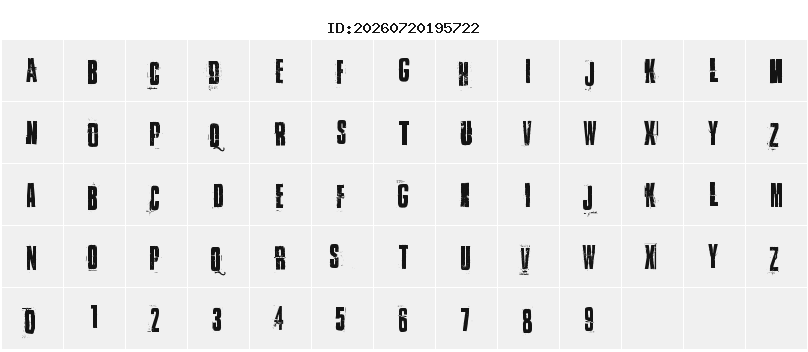
Found my way out Preview
• Font Name: Found my way out
• Designer: junkohanhero
About Found my way out.ttf
Found my way out.ttf is a modern, elegant sans-serif font designed for ultimate readability and visual harmony. Perfect for branding, headlines, web design, and print materials.